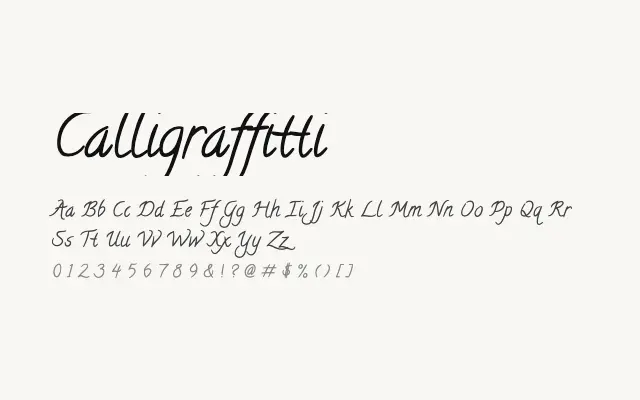
Calligraffitti
A rough, graffiti-styled casual script that trades elegance for urban spontaneity.
Calligraffitti captures the energy of marker-written street lettering, with deliberately uneven strokes and an informal rhythm that signals youth and irreverence. It works best at large sizes for short bursts of text — event posters, social graphics, or anything requiring a handmade edge. Its limited Latin-only coverage and single weight restrict its versatility considerably.
Calligraffitti mimics informal hand-lettering with an irregular, graffiti-influenced baseline and loose stroke rhythm. It reads as spontaneous and urban rather than polished or calligraphic.